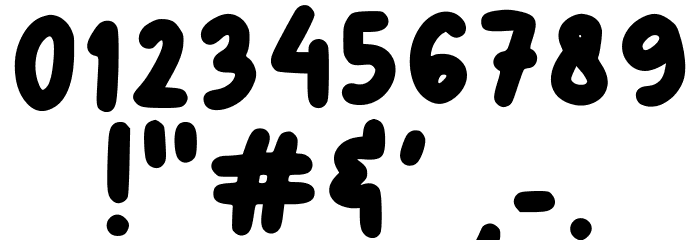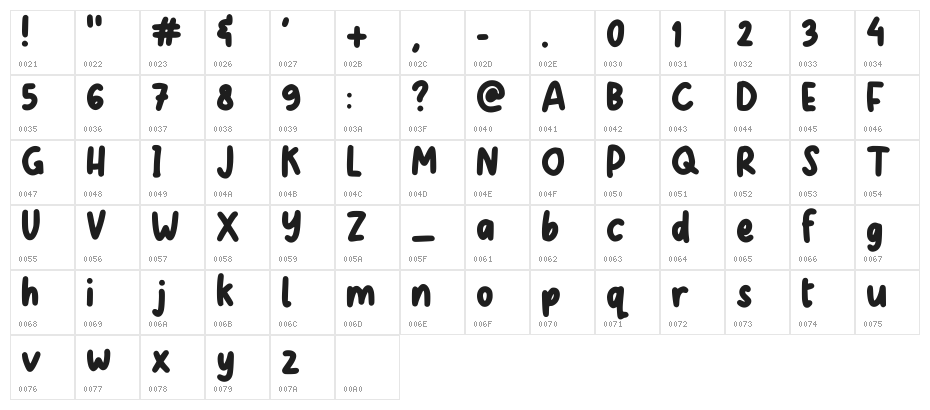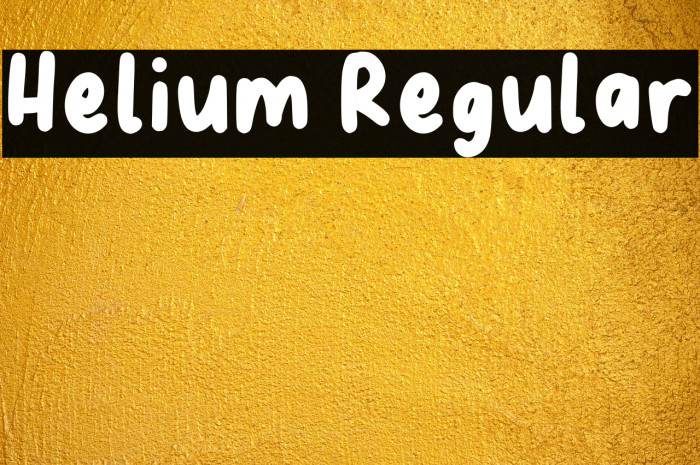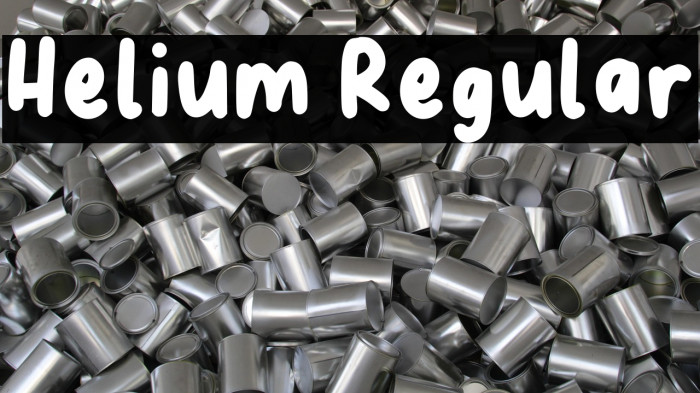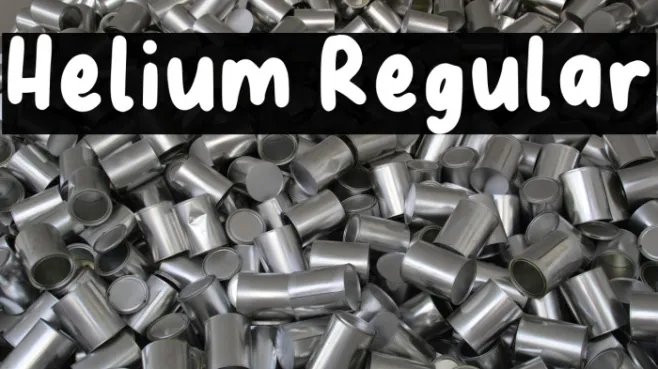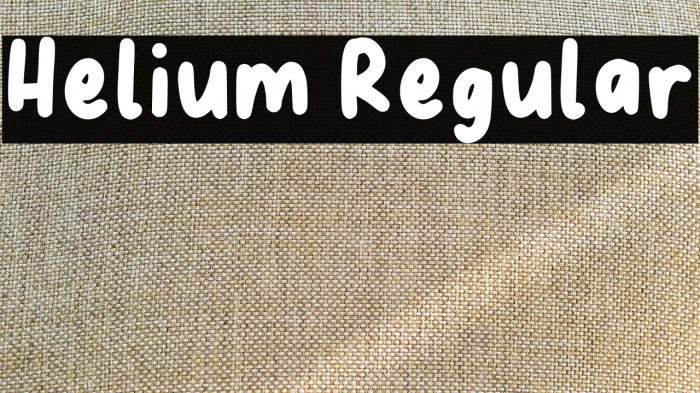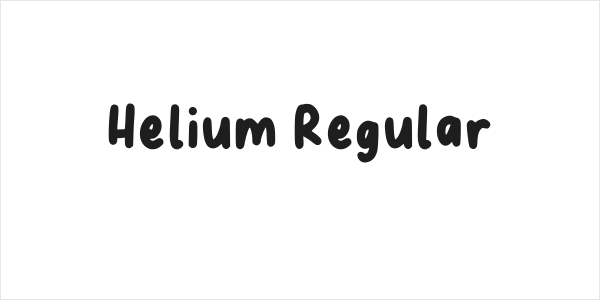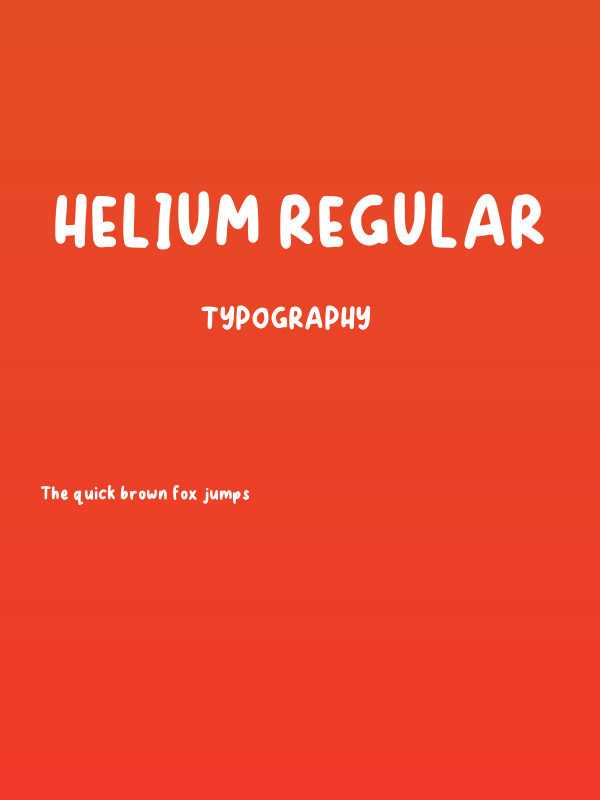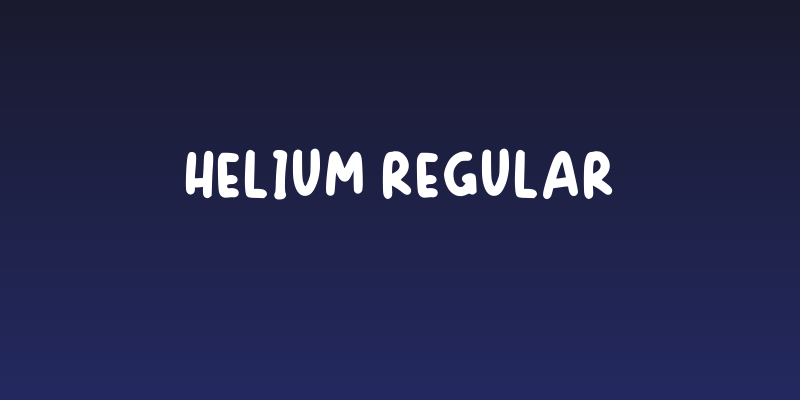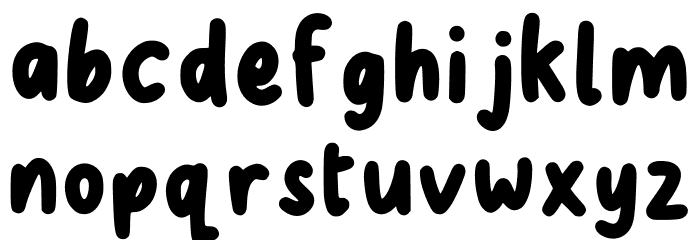
Helium Regular Font
Helium Regular Description
This playful and bold font features rounded, thick strokes that give it a friendly and approachable appearance. The characters are slightly irregular, adding a hand-drawn feel that enhances its casual and informal style. The uppercase and lowercase letters maintain a consistent weight, contributing to a cohesive look. The numerals and special characters follow the same design principles, ensuring uniformity across all glyphs. This font's smooth curves and lack of sharp edges make it ideal for projects that require a warm and inviting touch.
| Proposed Projects | Ideal for children's books, playful branding, casual invitations, and social media graphics. |